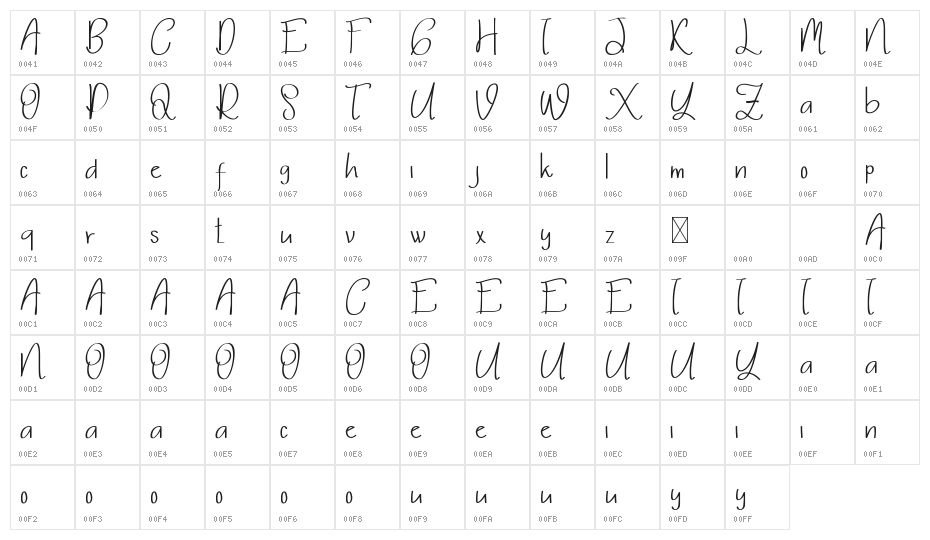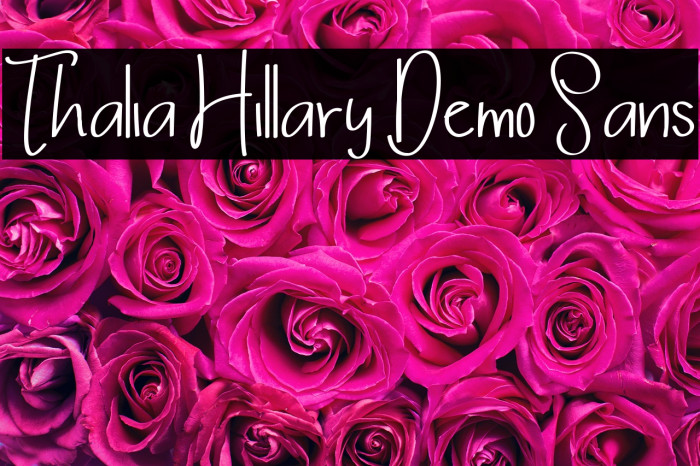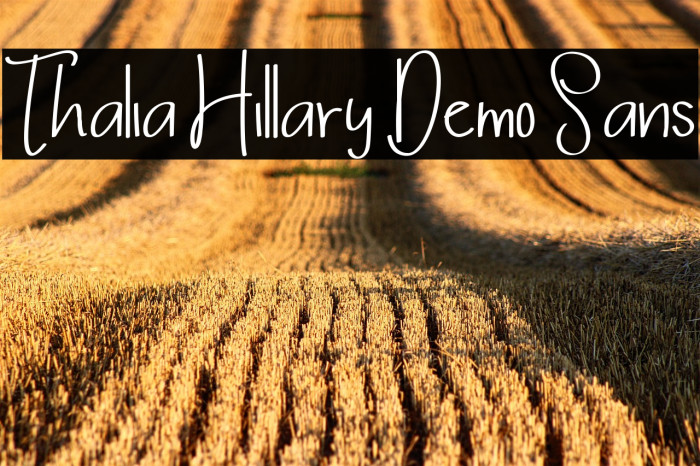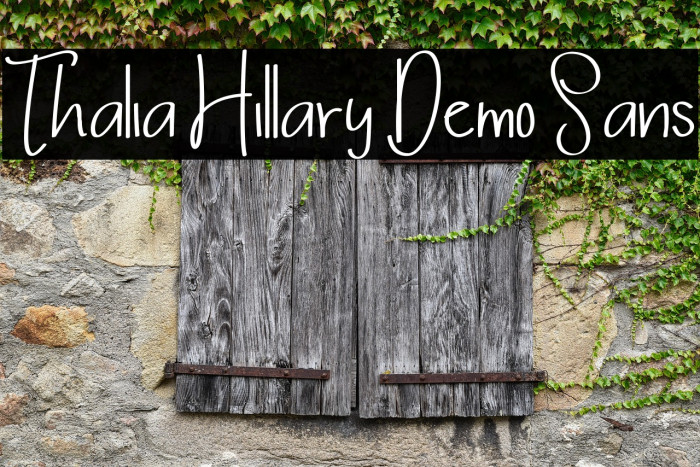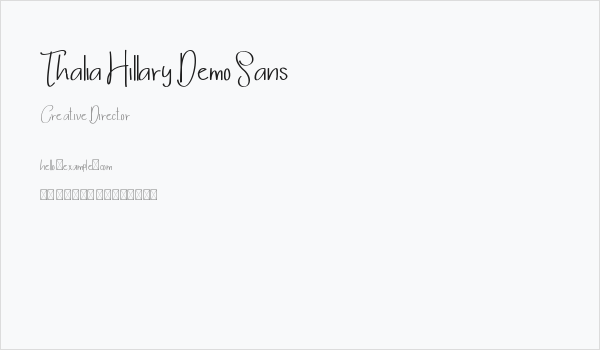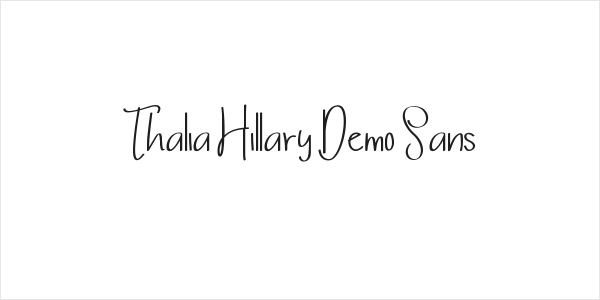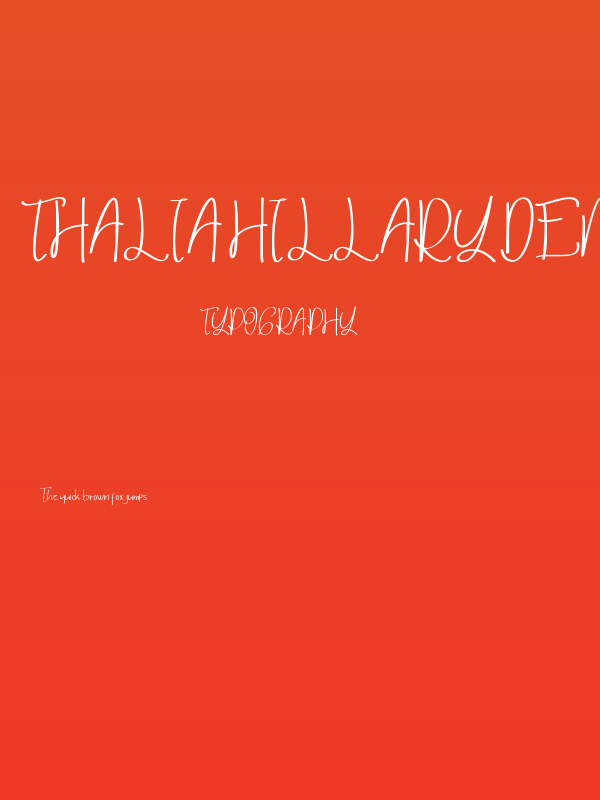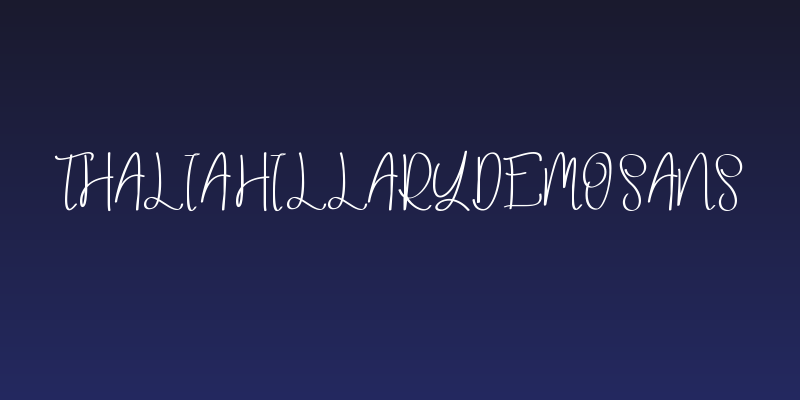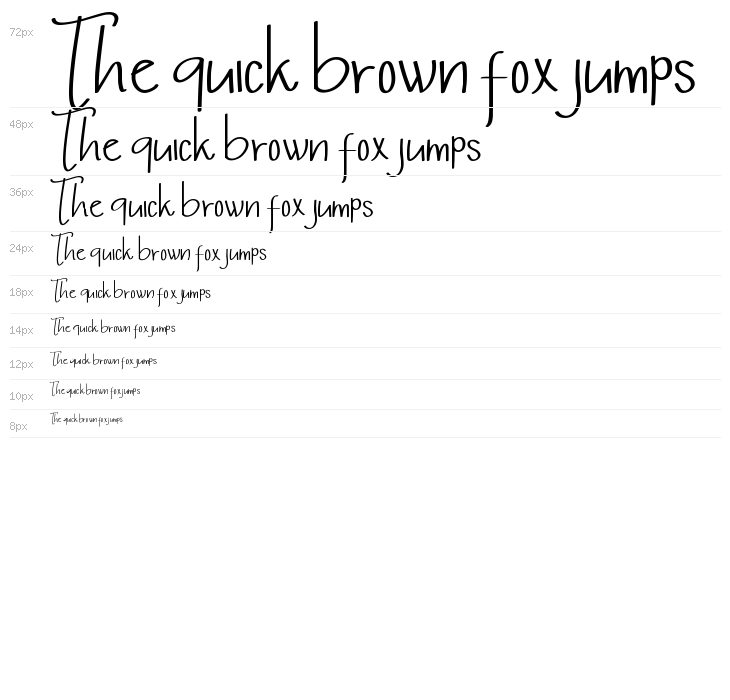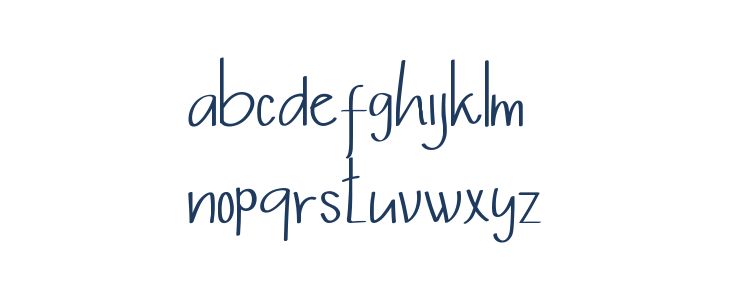
Thalia Hillary Demo Sans Font
Thalia Hillary Demo Sans Description
This font features a playful and whimsical script style, characterized by its fluid, hand-drawn appearance. The letters are connected in a cursive manner, with a consistent stroke width that gives it a smooth and flowing look. The uppercase letters are tall and elegant, while the lowercase letters maintain a charming, casual feel. The overall design is both modern and approachable, making it suitable for a variety of creative projects. Its unique style adds a personal touch to any text, making it ideal for invitations, greeting cards, and branding materials.